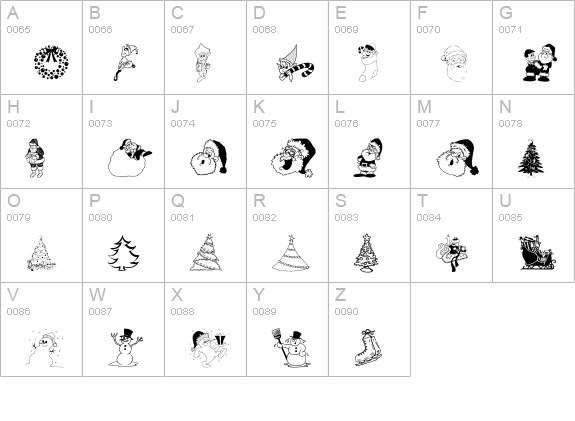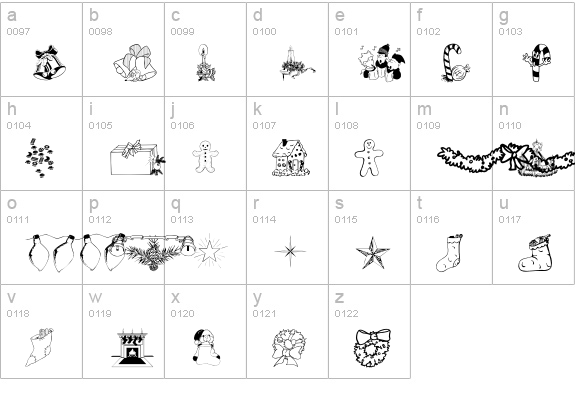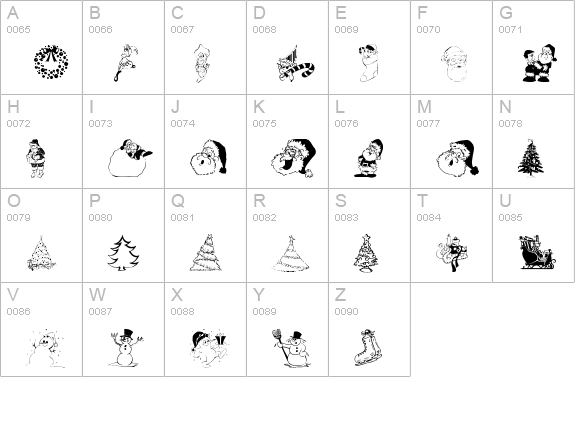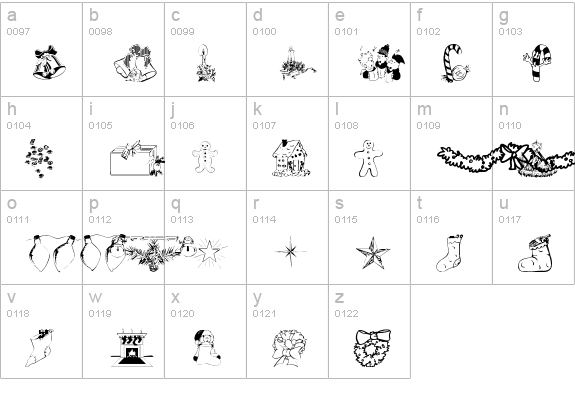
wmchristmas1 Font Details
The wmchristmas1 font is a whimsical and festive typeface perfect for all your holiday design needs. This charming font features a playful and decorative style that will add a touch of Christmas cheer to your projects. With its unique characters and delightful flourishes, wmchristmas1 is sure to bring joy and merriment to your designs. Best of all, this delightful font is available for free download at FontsMarket.com. Simply visit the website to access this charming typeface and start spreading the holiday spirit in your creations. Whether you're working on greeting cards, invitations, posters, or any other festive project, wmchristmas1 is the perfect font to make your designs merry and bright. Download it today and add a touch of holiday magic to your work!